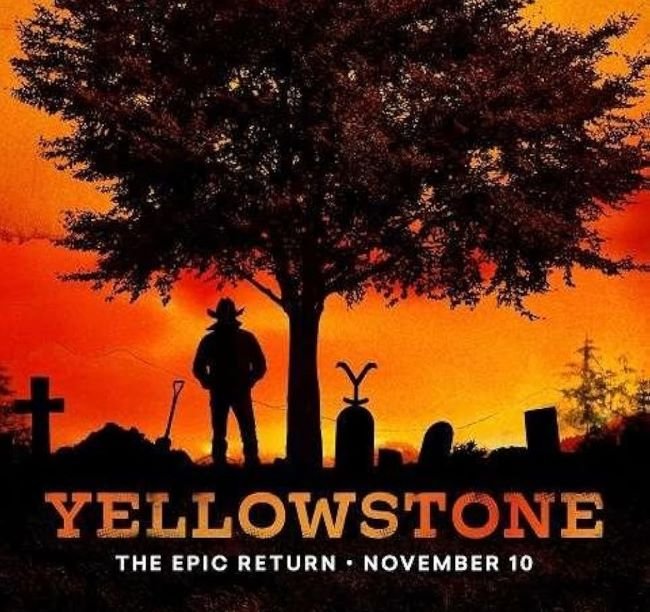
Yellowstone Font
Yellowstone Font is a bold Western display font — the original being Hatch — used in Taylor Sheridan’s Paramount Network drama that premiered in 2018 with Kevin Costner as John Dutton, patriarch of the largest ranch in Montana, fighting to protect his land against encroachment from property developers, a Native American reservation, and state politicians.
Its strong, frontier-forged letterforms communicate the show’s core themes of territorial ownership and generational legacy — typeface as barbed wire fence, marking what belongs to the Duttons and to no one else. A free alternative is available.